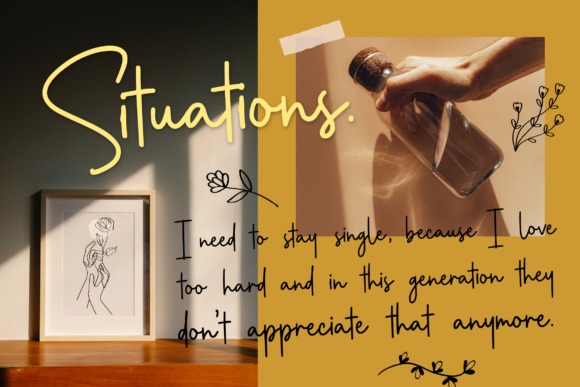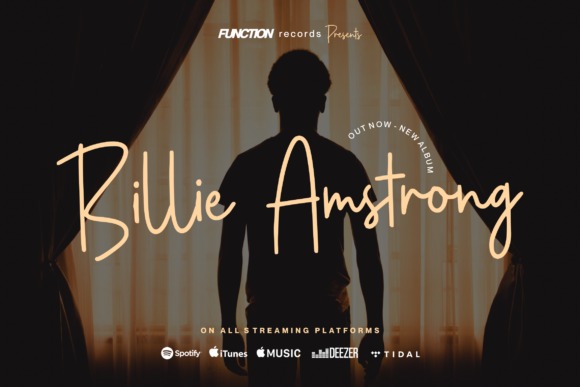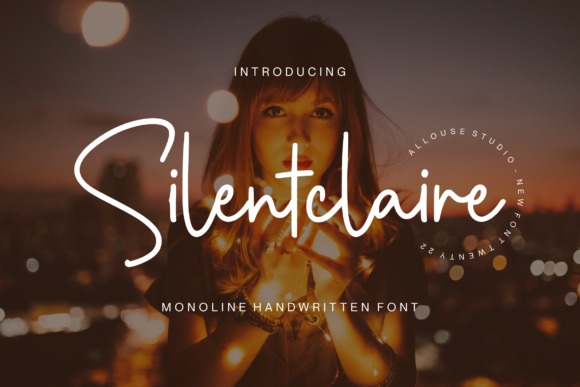
Silentclaire Font
Silentclaire Handwritten Font
It’s a clean and thin lettered script font. Whatever the topic, this font will be a wonderful asset to your font library, as it has the potential to enhance any creation.